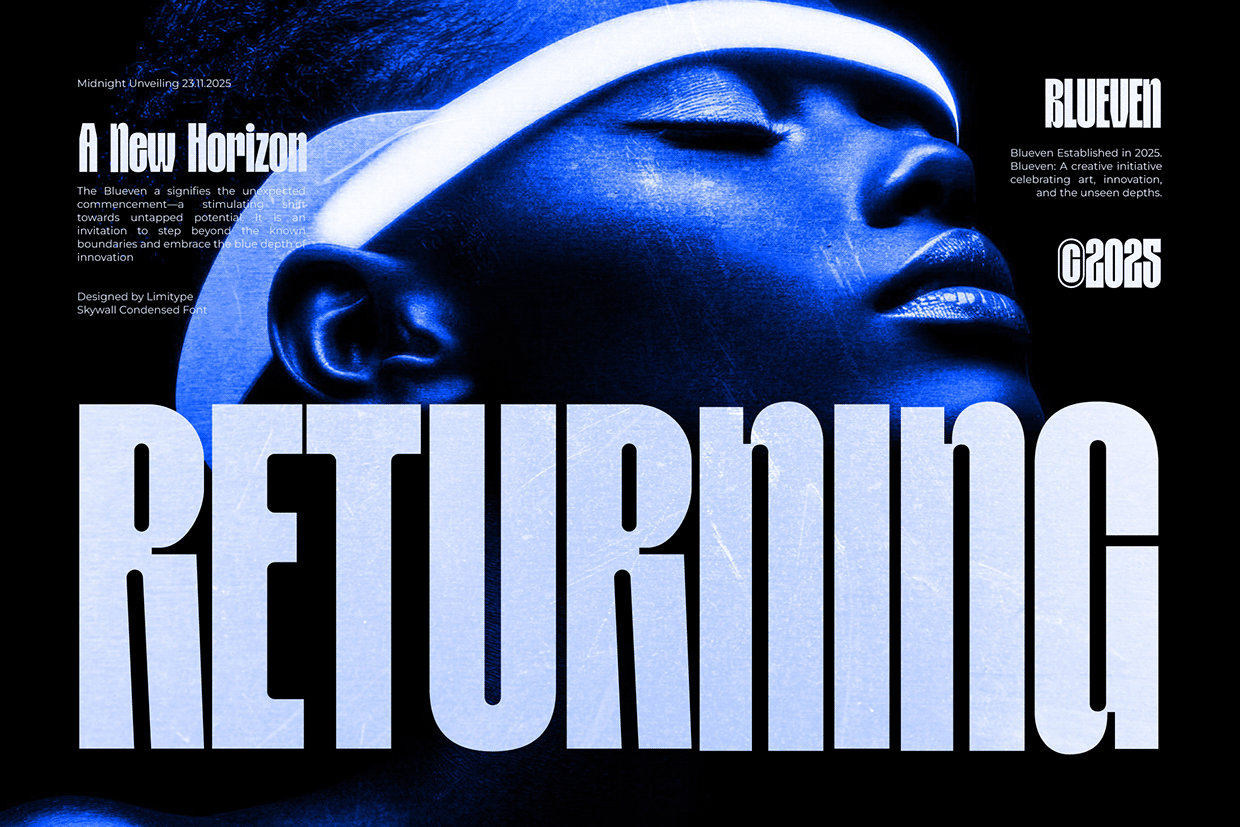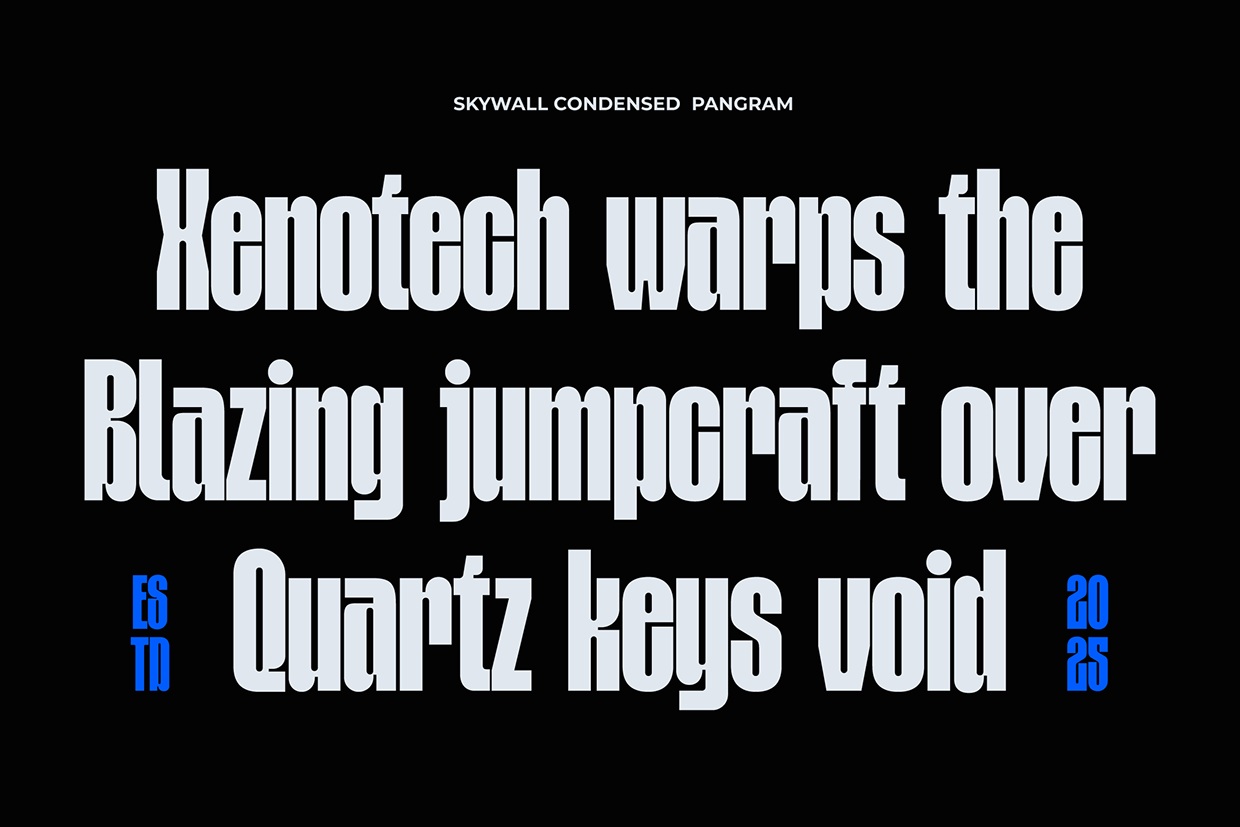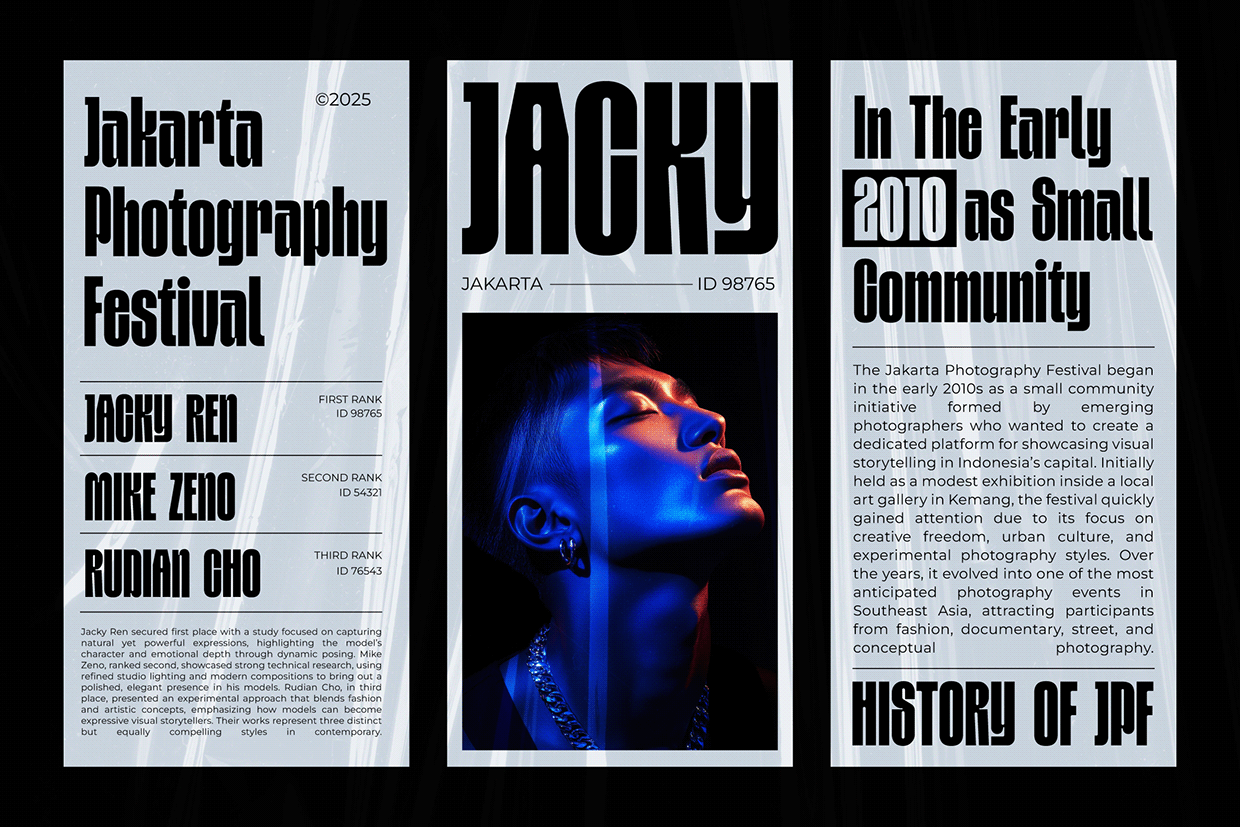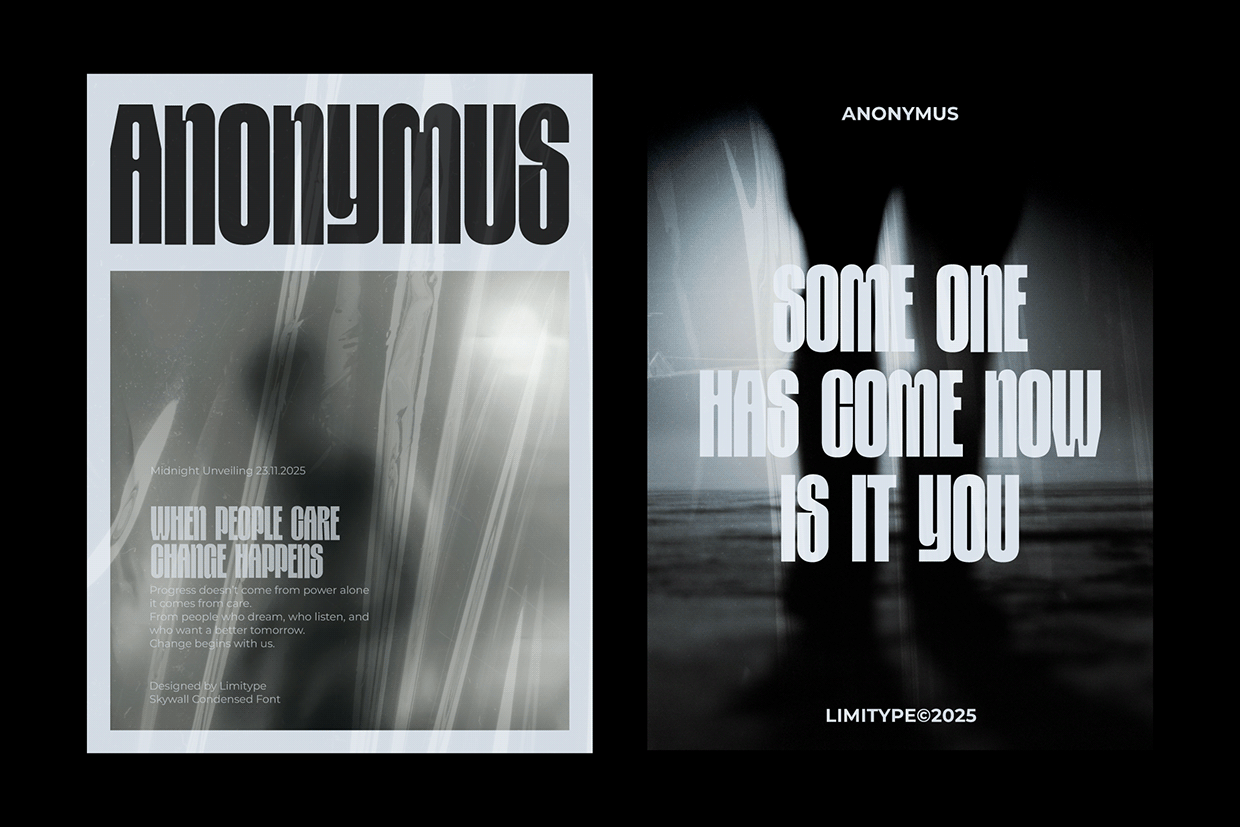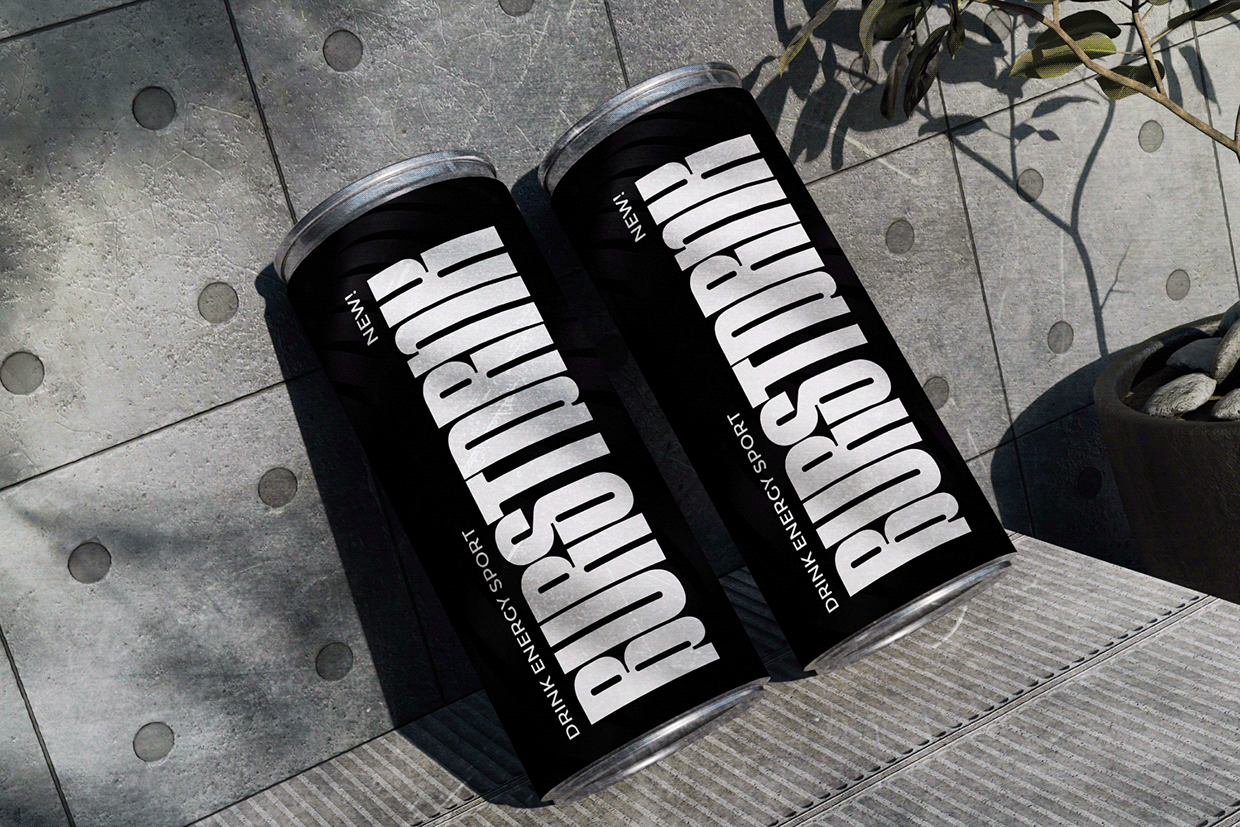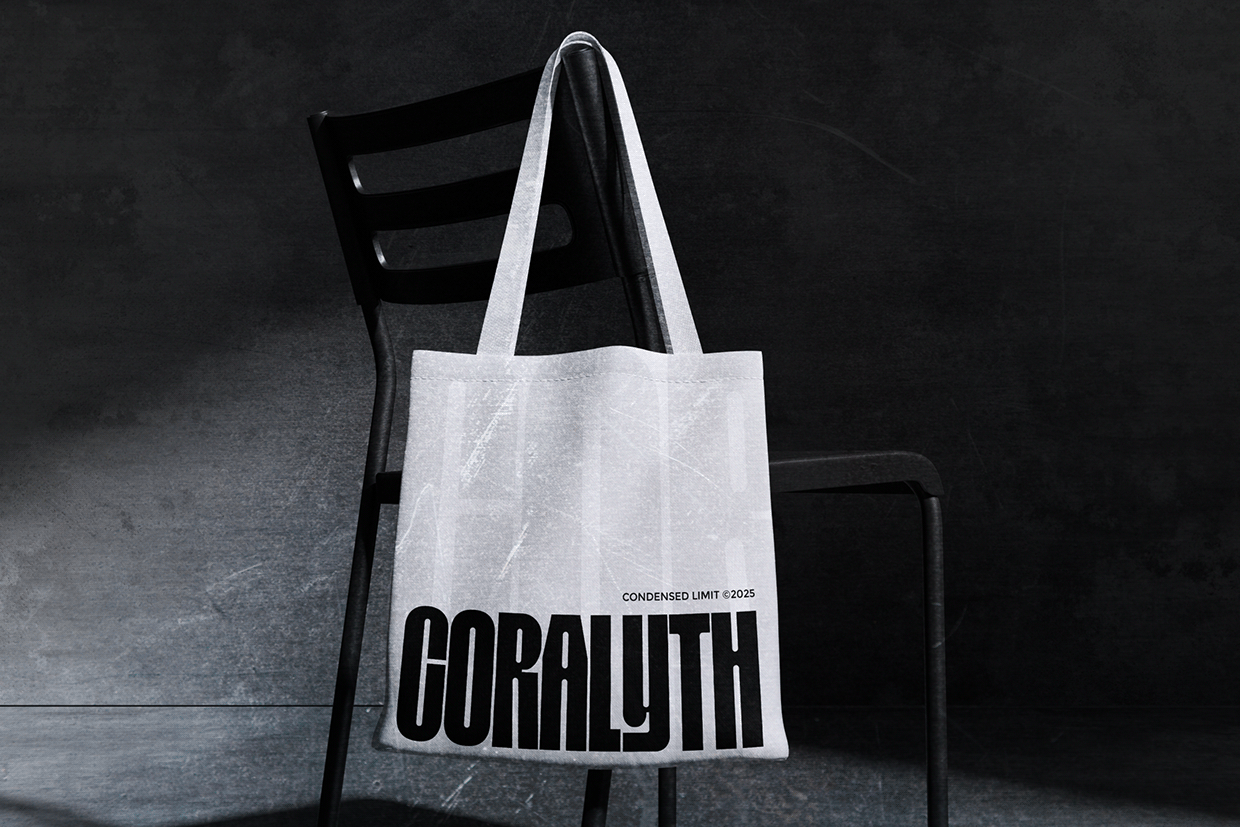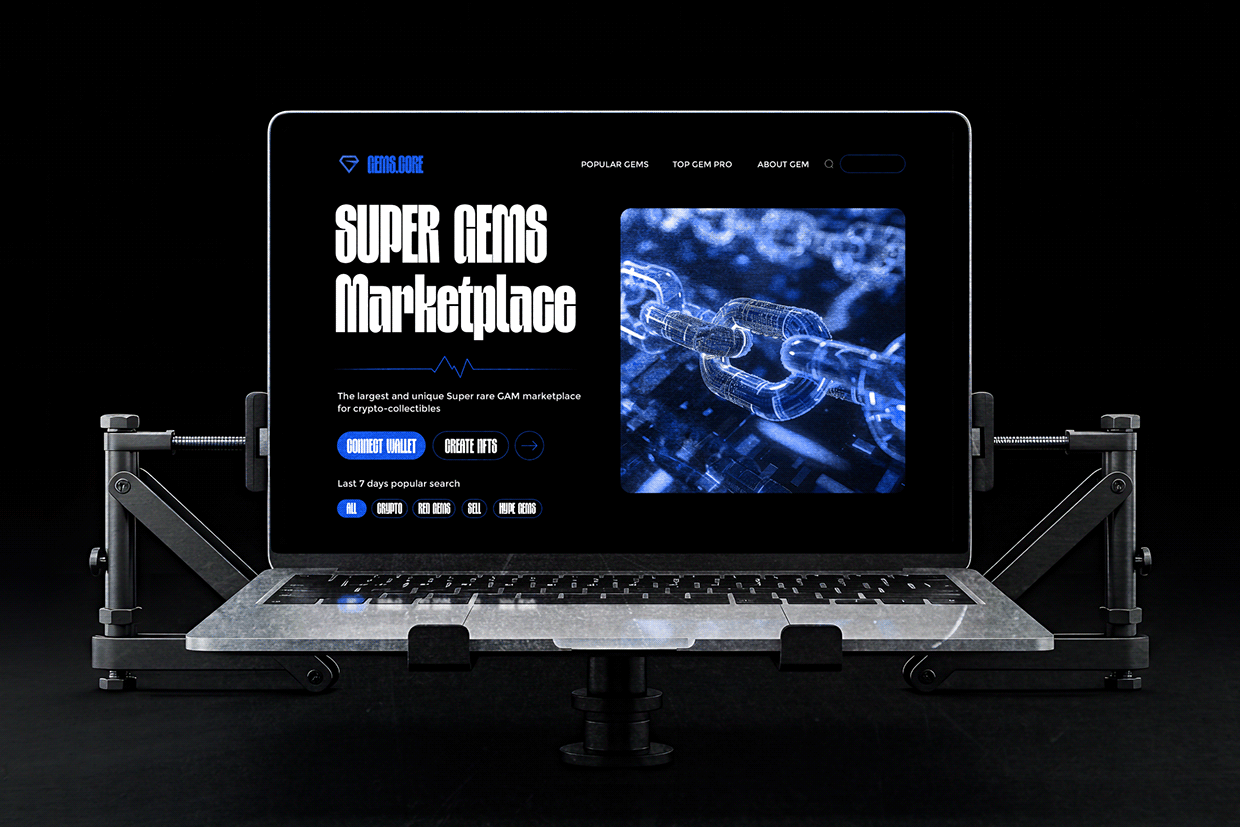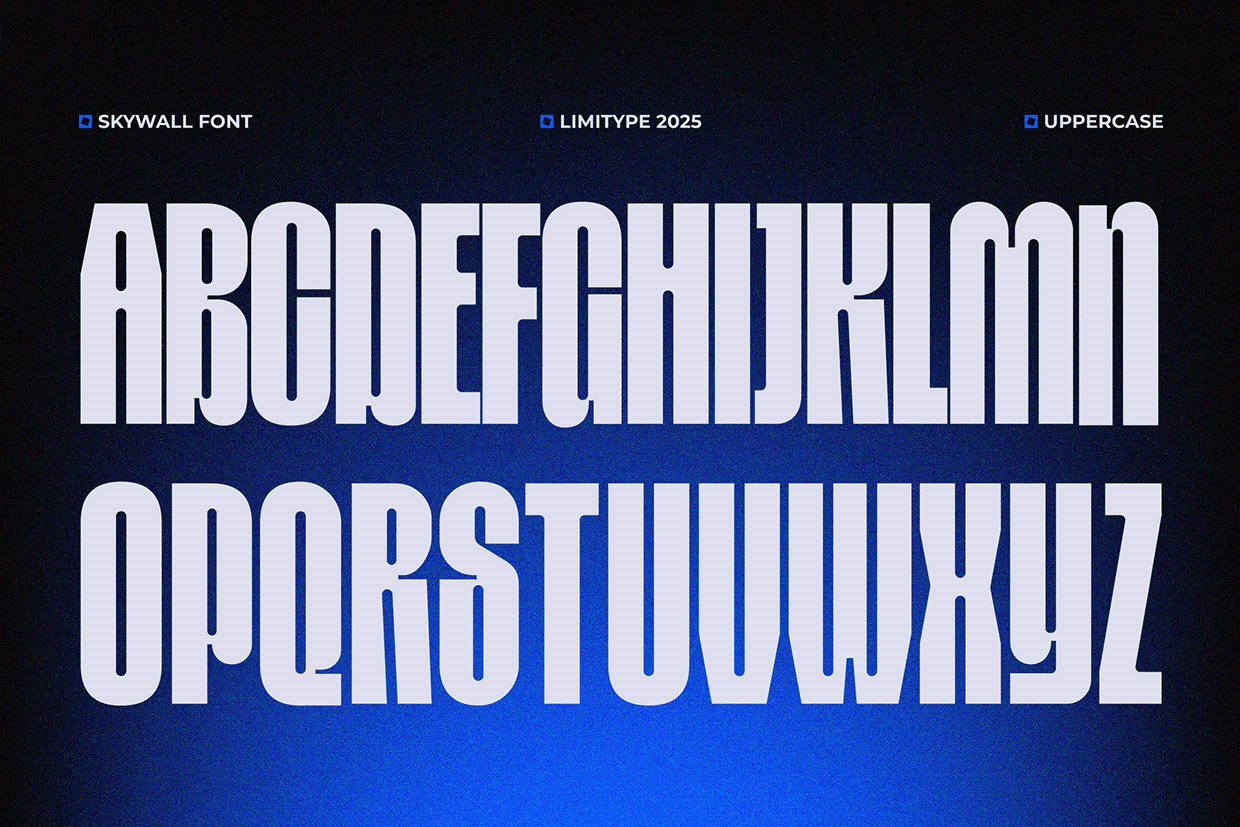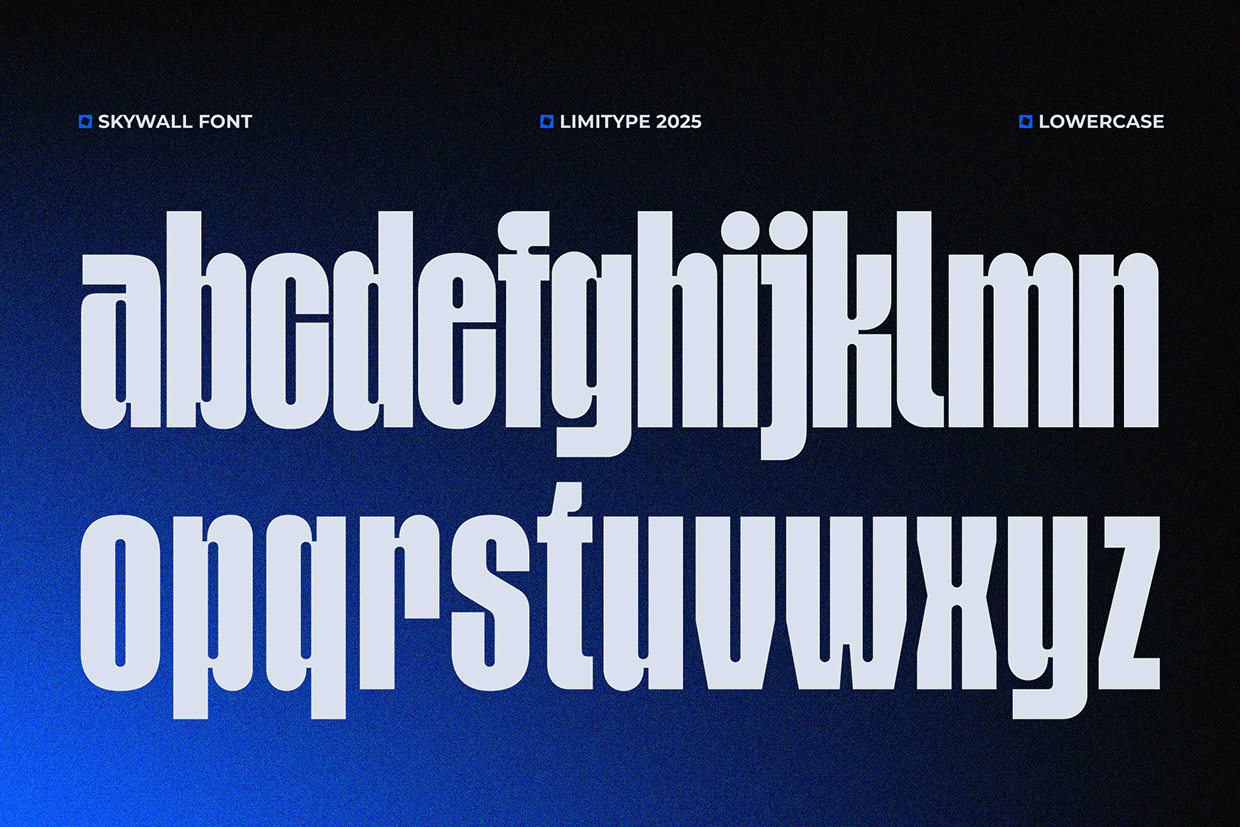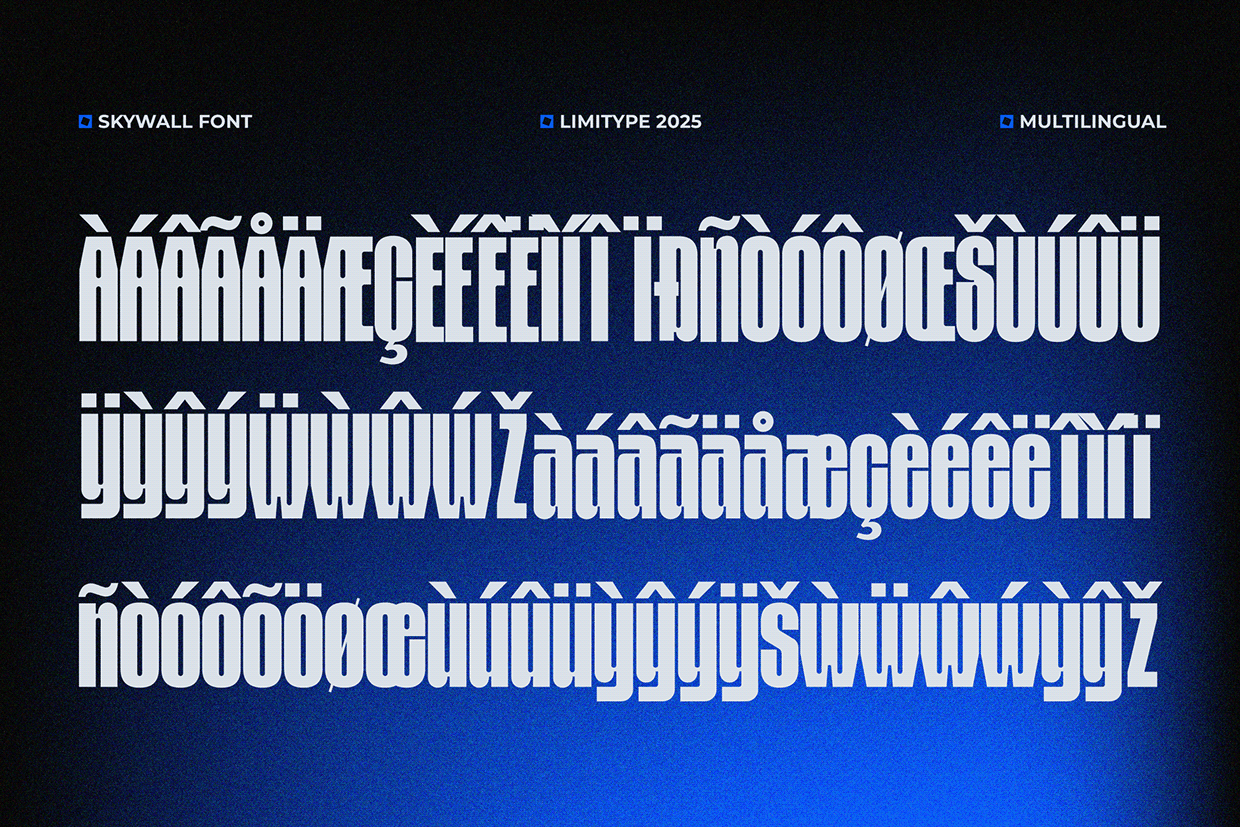
Skywall - Condensed Font
Skywall is a modern condensed font with tall, narrow, and bold letter proportions that deliver a strong futuristic impression. Its elongated and tightly spaced letterforms make every word appear solid, fast, and energetic, while still maintaining easy readability. With sharp curves and geometric angles, this font is ideal for sci-fi titles, urban themes, esports designs, posters, branding, tech interfaces, and headlines that aim to stand out.